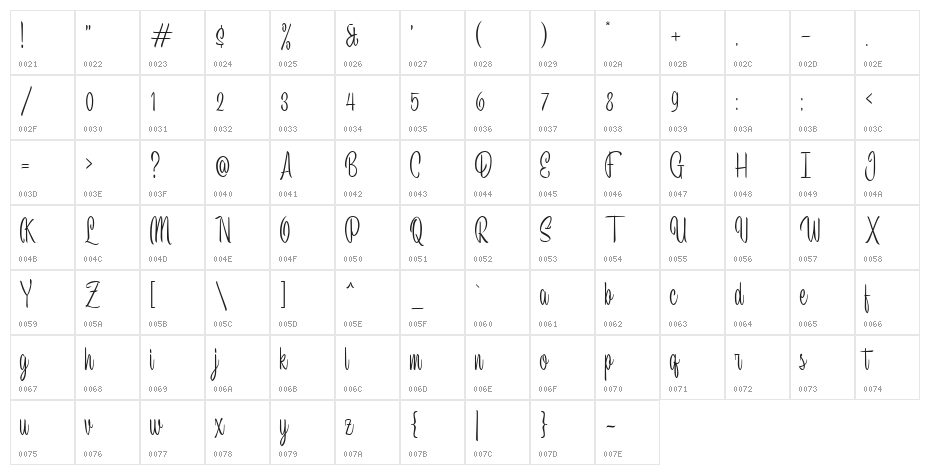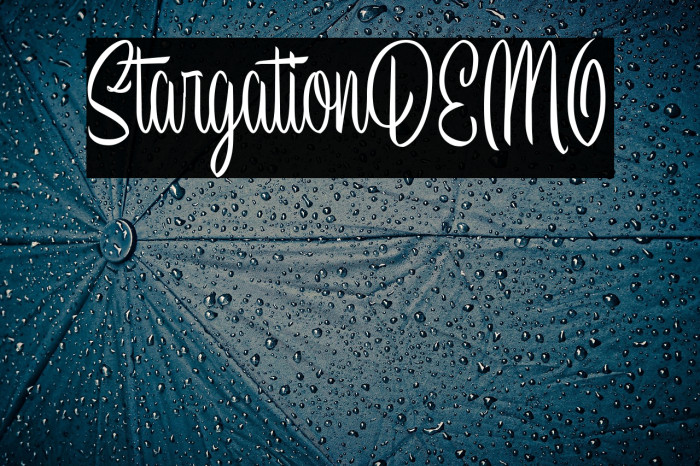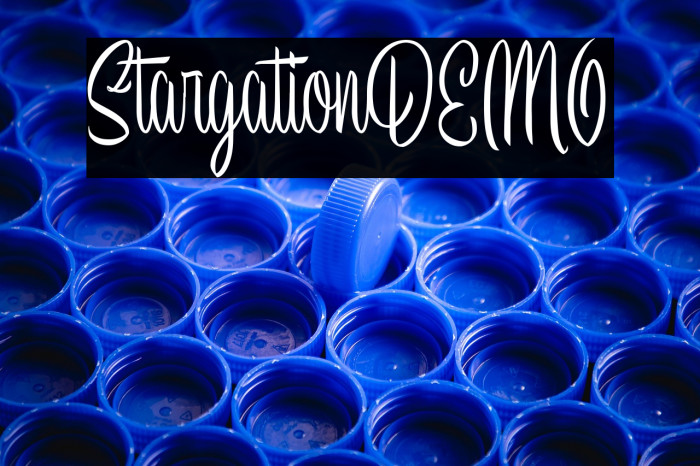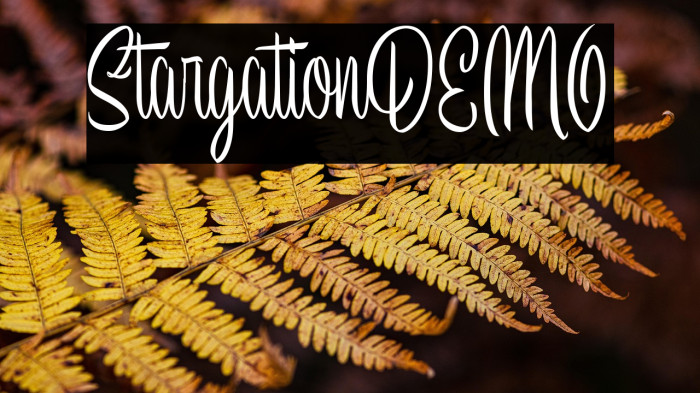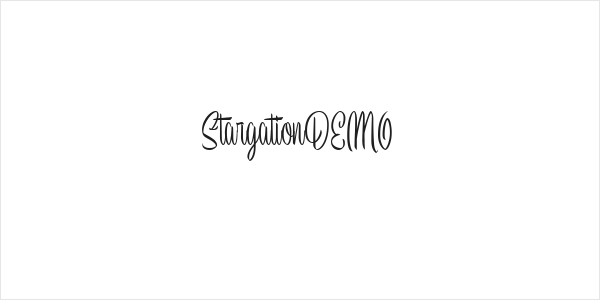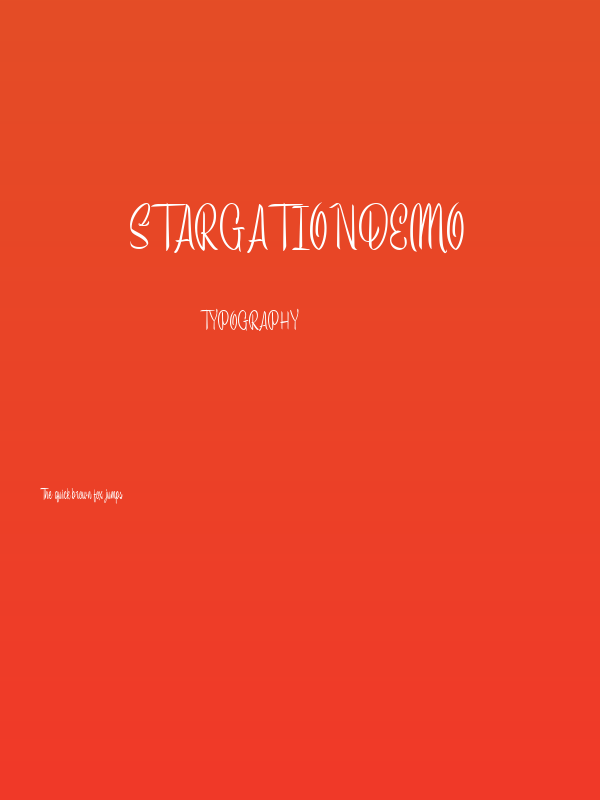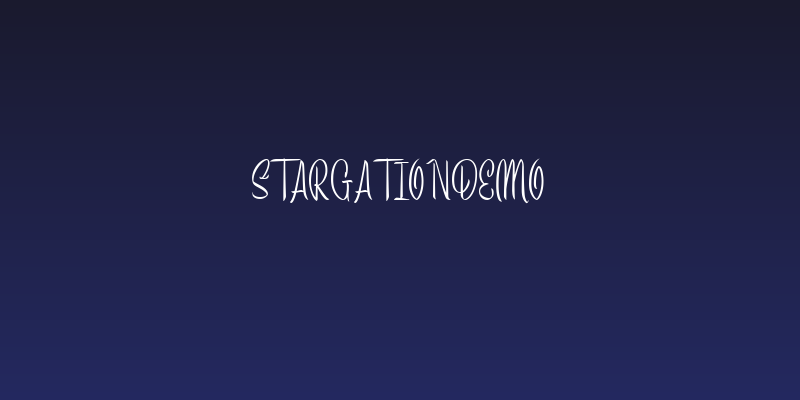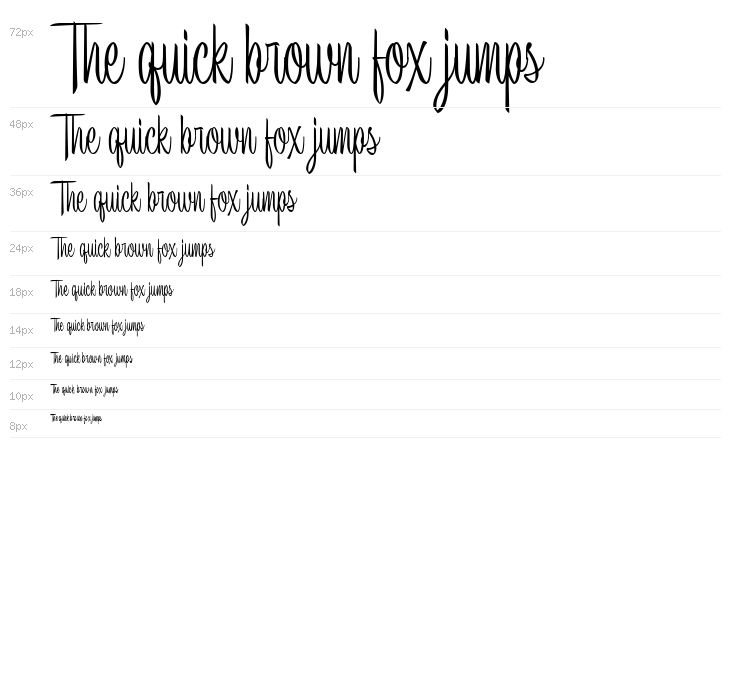
StargationDEMO Font
StargationDEMO Description
This font features a playful and elegant script style with a handwritten appearance. The characters are elongated and slightly slanted, giving a sense of movement and fluidity. The uppercase letters are bold and prominent, while the lowercase letters maintain a consistent flow with a touch of whimsy. The numerals are clear and easy to read, complementing the overall style. Special characters are creatively integrated, maintaining the font's unique aesthetic. The font's design is both modern and classic, making it versatile for various applications.
| Use Case | Logos, Invitations, Greeting Cards |
| Proposed Projects | Ideal for wedding invitations, greeting cards, branding, and logo design. |